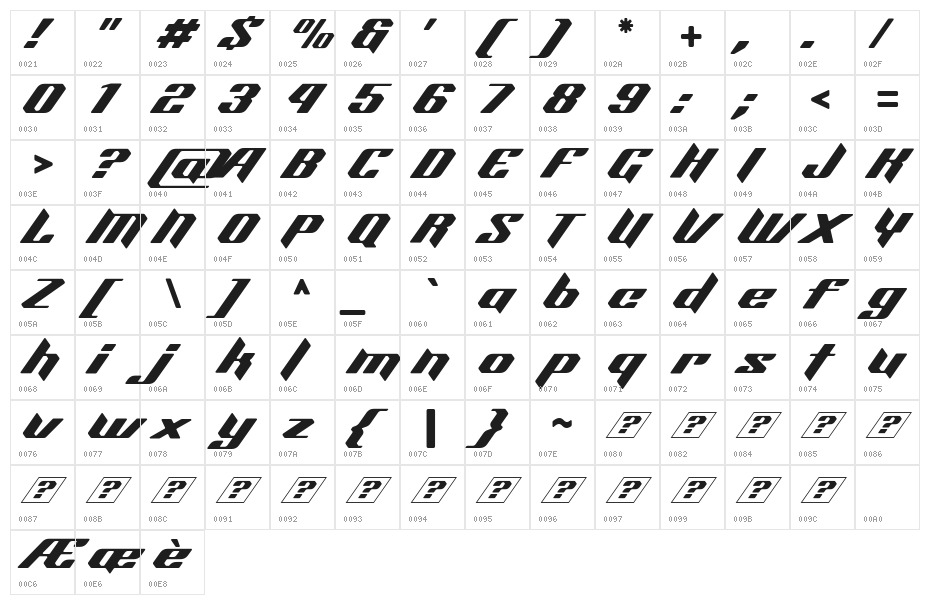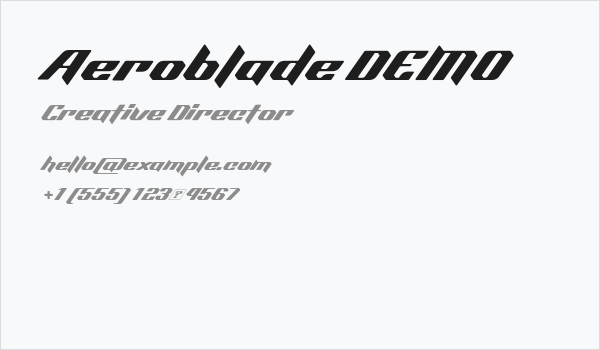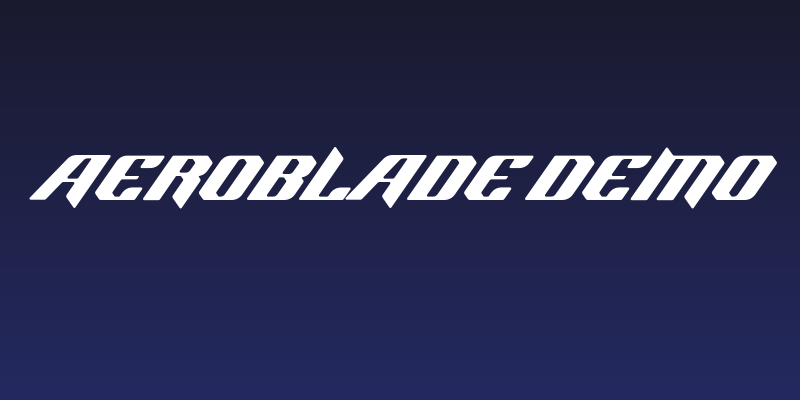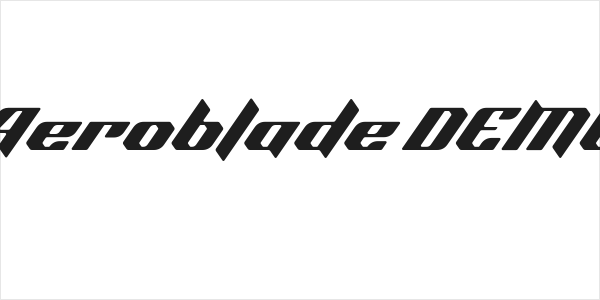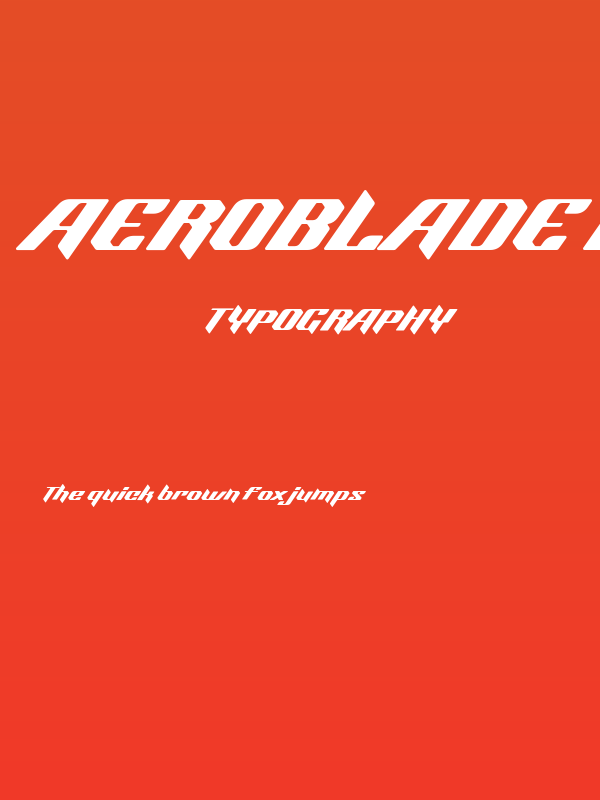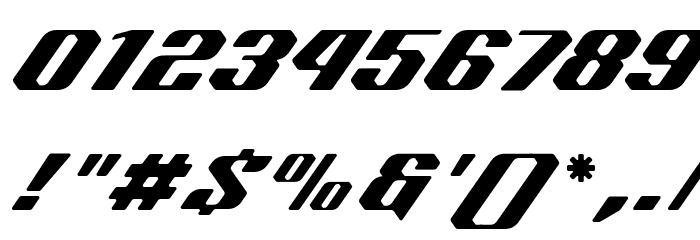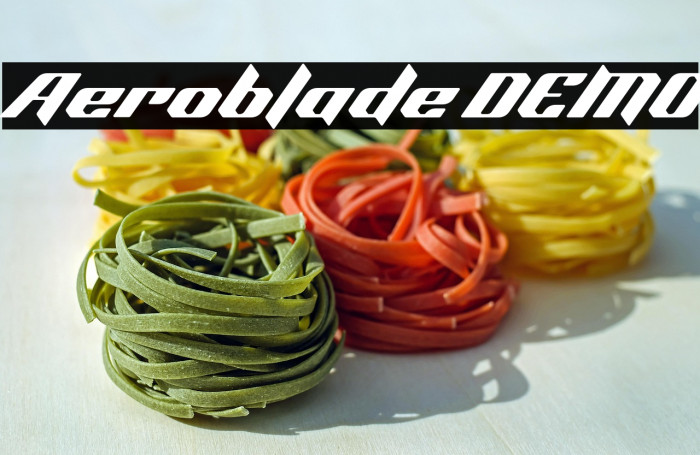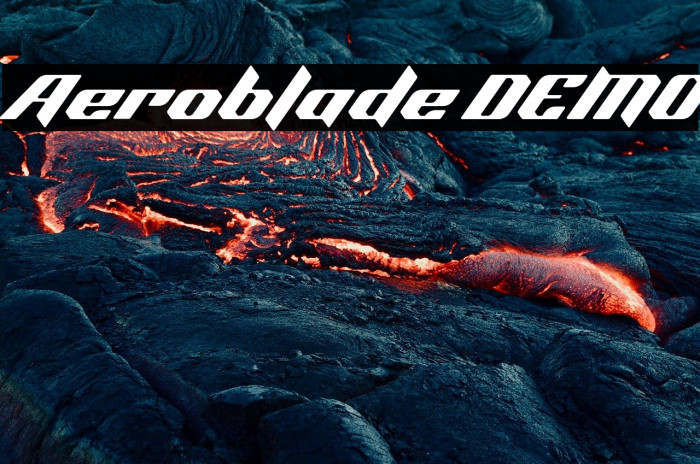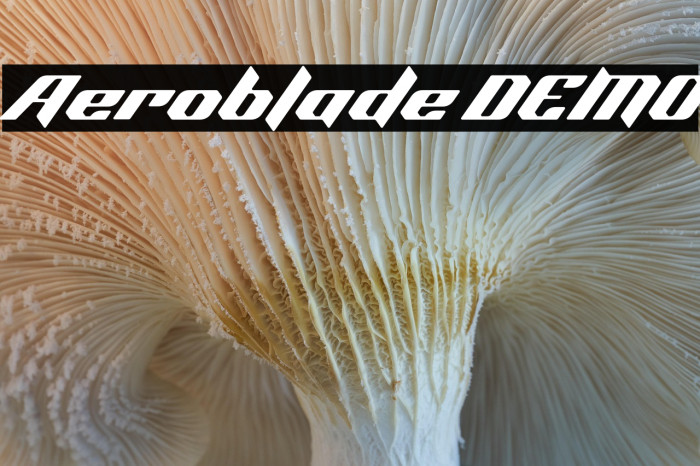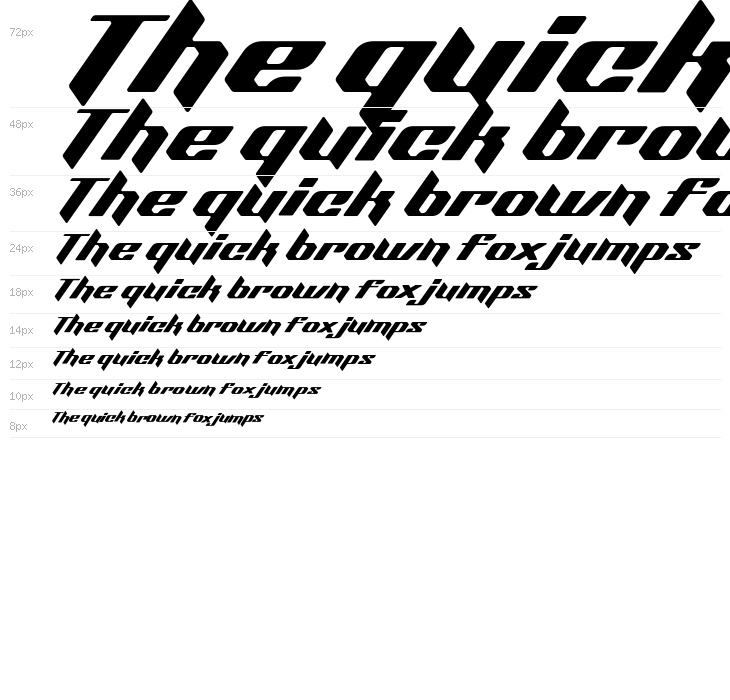
Aeroblade DEMO Font
Aeroblade DEMO Description
This font features a bold and dynamic style with a futuristic flair. The characters are sharply angled, giving them a sense of motion and speed, reminiscent of high-performance vehicles or cutting-edge technology. The uppercase and lowercase letters maintain a consistent slant, enhancing the sense of forward movement. The numerals and special characters are designed with the same angular precision, ensuring uniformity across all glyphs. The font's thick strokes and sharp edges make it highly legible, even at smaller sizes, while its unique design elements add a distinctive touch to any project.